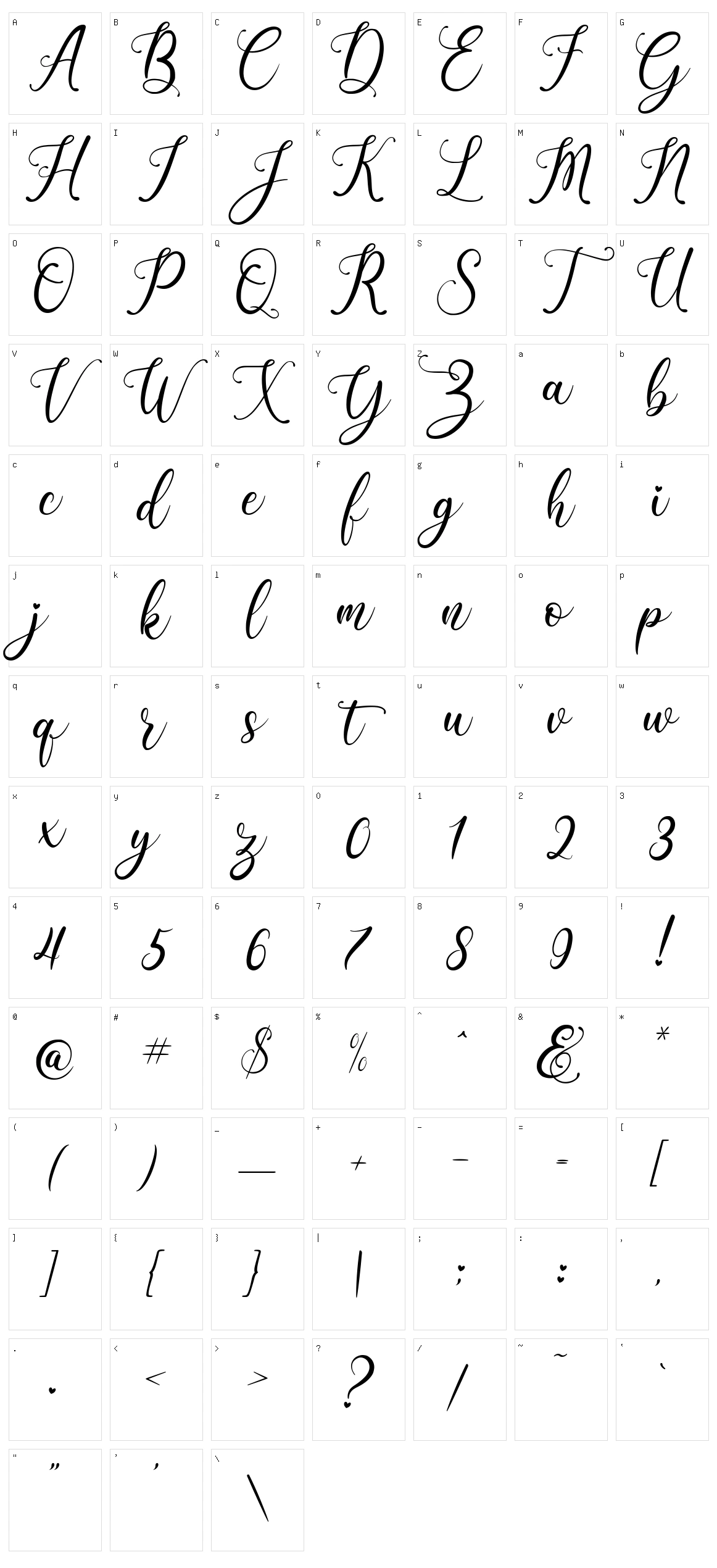
The free font Beauty Gadish is carefully designed by Almeera Studio, showcasing a thoughtful balance of creativity and usability and falls under the Script font style. When you download the ZIP file, it contains only 75.24 KB of font files, making it lightweight and quick to download. Please review the license details below to understand permitted usage and distribution rights. If license information is not available, we recommend using this font for personal projects only or contacting the author directly for commercial usage permissions.